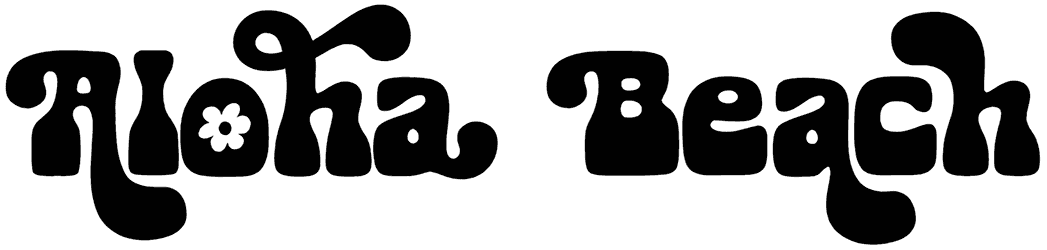
Wizard Font
Wizard font twists chunky retro lettering into soft, wavy shapes with bulbous curves, pinched joins, and exaggerated terminals that give every word a psychedelic bounce. The preview leans heavily into a 70s groovy mood, especially with its stretched proportions and slightly melted silhouette, making the type feel playful, decorative, and instantly poster-ready.
Festival posters, record sleeves, vintage apparel, café branding, sticker packs, or quirky packaging would suit this groovy font beautifully. Try mustard yellow, teal, dusty pink, cream, oversized centered words, floral doodles, and thick contrasting outlines. Keep the supporting type simple so those warped letterforms remain the main event.
Designed by: Toko Laris Djaja